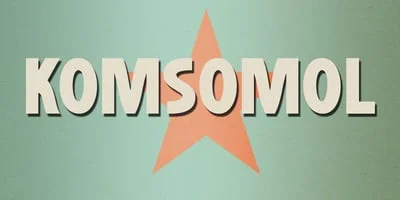
Komsomol Font
Komsomol Font presents a bold and distinctive typeface inspired by Soviet-era typography and revolutionary design aesthetics. Please note that you must purchase this font for commercial use, though you can download it for free for testing purposes.
This powerful font excels in various design applications including historical documentaries, political posters, vintage propaganda designs, museum exhibitions, historical book covers, revolutionary-themed artwork, industrial branding projects, and retro gaming interfaces. Its commanding presence makes it ideal for projects requiring strong visual impact with historical authenticity.
Komsomol Font is exciting because it captures the essence of Soviet constructivist design philosophy while maintaining contemporary usability. The font embodies the spirit of the Communist Youth League with its bold, angular letterforms that convey strength, unity, and revolutionary fervor. Each character reflects the industrial aesthetic of the early 20th century socialist movement.
The Komsomol Font family includes multiple variations: Regular, Bold, Condensed, and Extended styles. Some versions feature Cyrillic character sets alongside Latin alphabets, providing authentic Russian typography options. These family members offer designers comprehensive tools for creating historically accurate and visually striking compositions.
Whether you're working on educational materials, historical recreations, or artistic projects, Komsomol Font delivers exceptional character and authenticity. This font transforms modern designs into powerful statements that honor the revolutionary spirit while serving contemporary design needs with remarkable visual strength and historical significance.